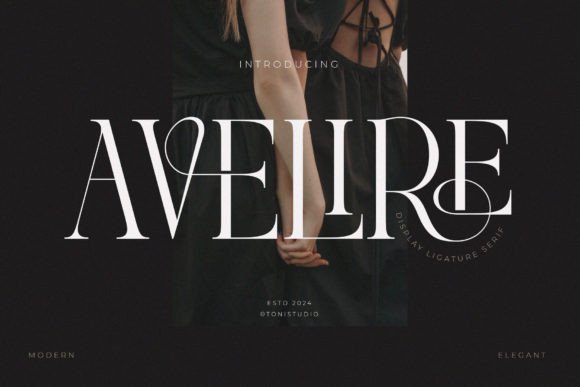
Avelire Font: Elevate Your Brand with Modern Elegance
In the world of typography, a font can make or break a brand’s identity. A well-crafted font can elevate a brand’s image, convey its values, and leave a lasting impression on its audience. Introducing Avelire, a modern ligature font designed to revolutionize the way you approach branding, logos, invitations, and more.
Based on our imagination, we brainstormed and created Avelire to bring a unique and elegant solution to the world of typography. This font is perfect for brands and logo designs, offering a classy, elegant, and distinctive look that sets you apart from the competition.
What Makes Avelire Special?
- Modern Ligature Styles: Avelire boasts a range of modern ligature styles that can add a touch of sophistication to your brand’s identity.
- Perfect for Branding and Logos: With Avelire, you can create a unique and memorable logo that reflects your brand’s values and personality.
- Elegant and Classy: This font exudes elegance and class, making it perfect for high-end brands, luxury products, and sophisticated designs.
- Unique and Distinctive: Avelire’s modern design ensures that your brand stands out from the crowd, making it an excellent choice for businesses looking to establish a strong visual identity.
The Many Uses of Avelire Font
Avelire is a versatile font that can be used in various design applications, including:
- Branding: Create a strong and recognizable brand identity with Avelire’s modern and elegant ligature styles.
- Logos: Design a unique and memorable logo that reflects your brand’s values and personality.
- Invitations: Add a touch of sophistication to your invitations, whether it’s for a wedding, corporate event, or product launch.
- Mastheads: Elevate your publication’s or website’s header with Avelire’s elegant and classy design.
The Design Process Behind Avelire
Our team of expert designers brainstormed and created Avelire with a clear vision: to design a modern ligature font that would meet the needs of brands and designers looking for a unique and elegant solution.
We experimented with various design elements, carefully crafting each letterform to ensure that Avelire is not only aesthetically pleasing but also highly legible.
The Benefits of Using Avelire Font
- Enhance Your Brand’s Image: Avelire’s modern and elegant design can elevate your brand’s image, making it more appealing to your target audience.
- Stand Out from the Competition: With Avelire, you can create a unique and distinctive brand identity that sets you apart from your competitors.
- Increase Legibility: Avelire’s carefully crafted letterforms ensure that your message is conveyed clearly and effectively.
- Versatility: Avelire can be used in various design applications, making it a valuable addition to your design arsenal.
In conclusion, Avelire is a modern ligature font designed to help brands and designers create a unique and elegant visual identity. With its range of ligature styles, Avelire is perfect for branding, logos, invitations, mastheads, and more.
Whether you’re looking to elevate your brand’s image, stand out from the competition, or simply add a touch of sophistication to your designs, Avelire is the perfect choice.